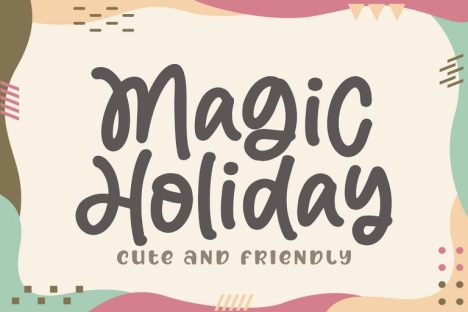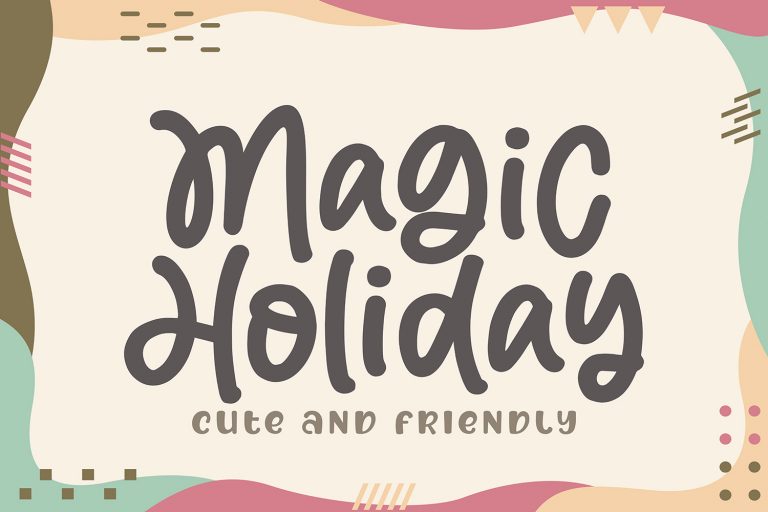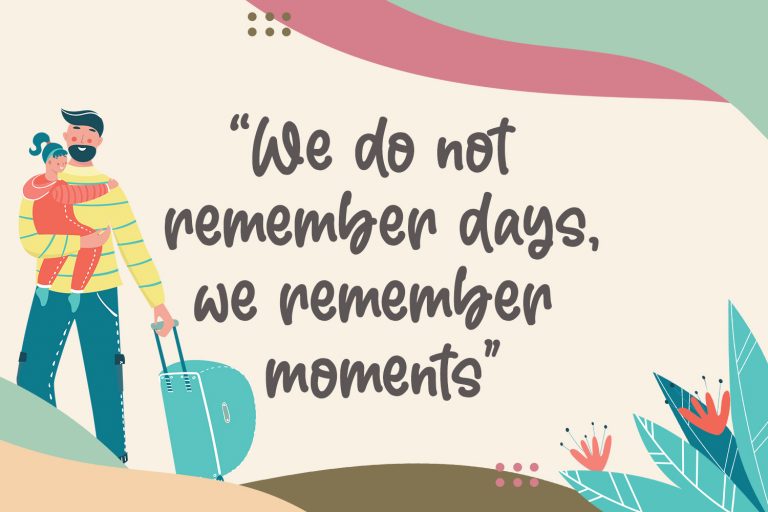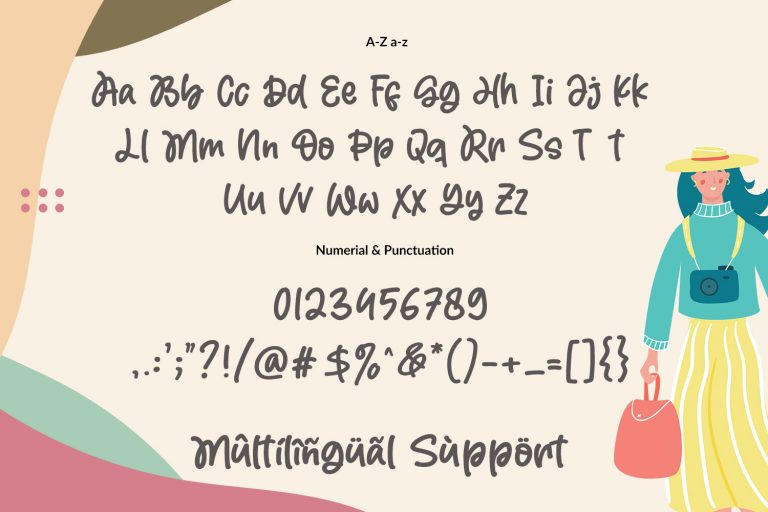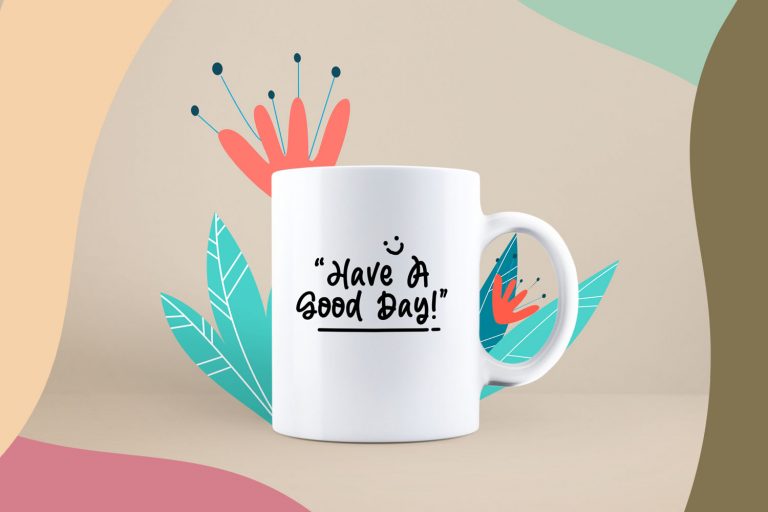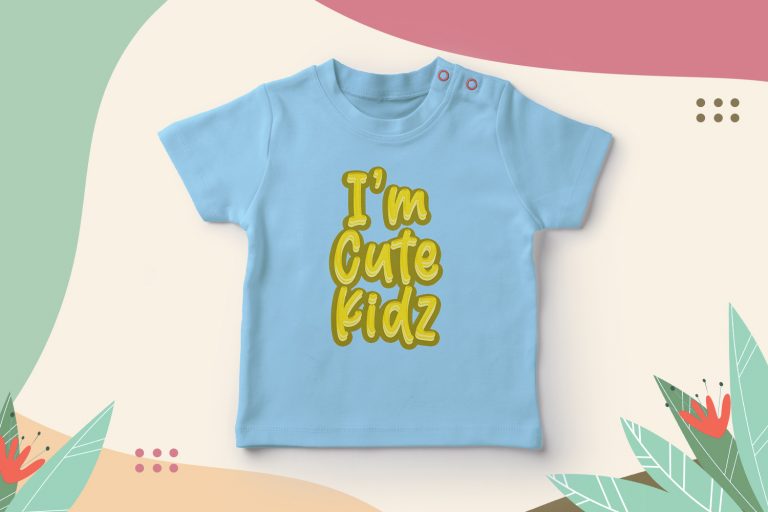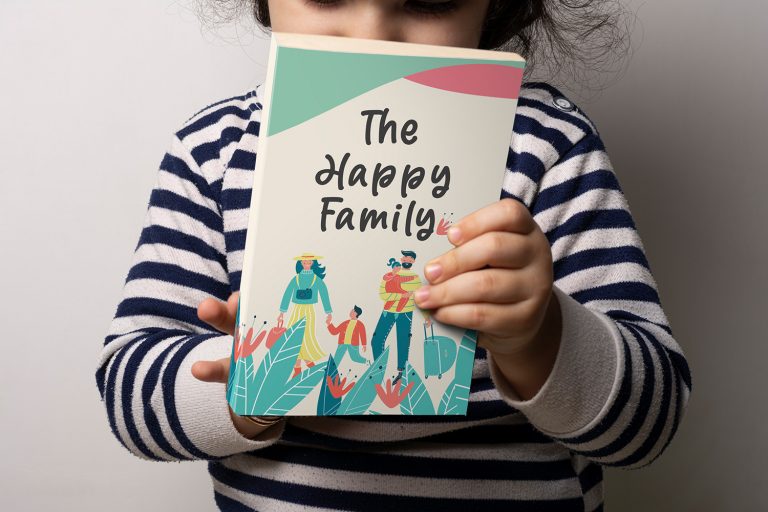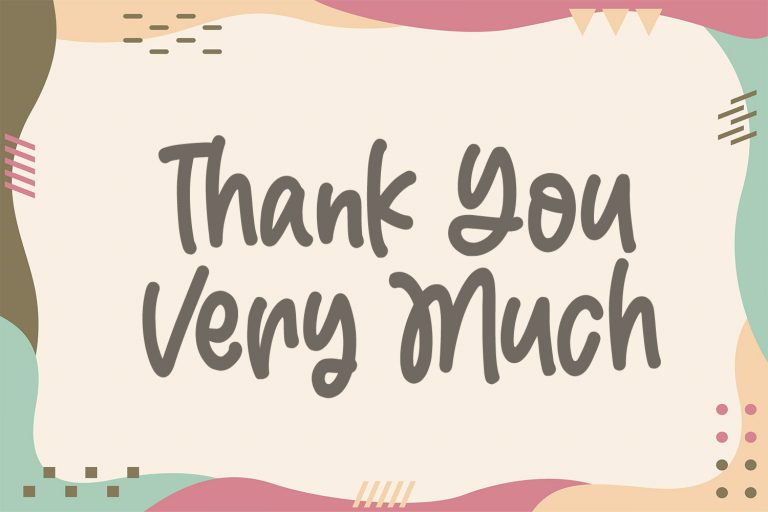
Magic Holiday
Magic Holiday is a fun and whimsical paint brushed display font. This font is perfect for children themed designs, especially when combined with bright colors.